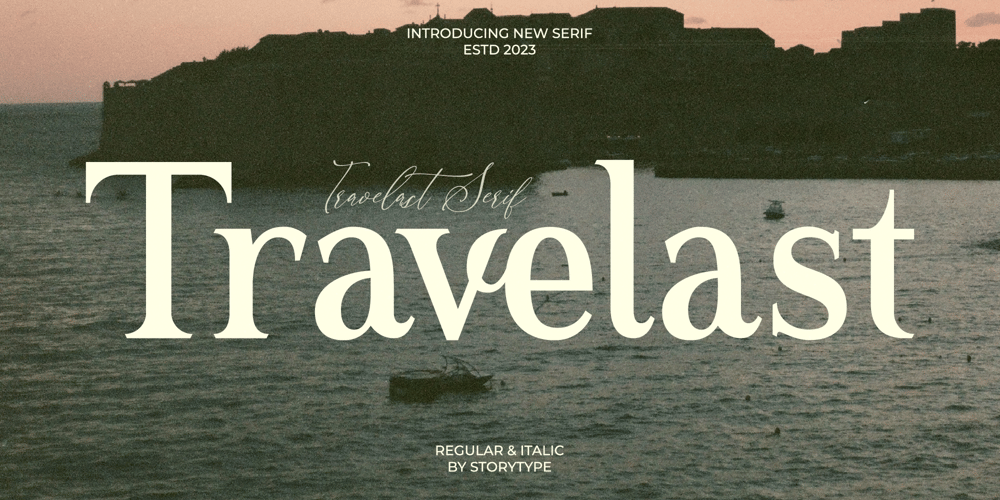
Travelast Font Family was designed by Heru Utama Putra and published by Letterena Studios. Travelast contains 2 styles and family package options. Travelast Typeface is a classic serif typeface. This lovely font is perfect for an elegant & luxury logo, book or movie title design, fashion brand, magazine, clothes, lettering, quotes, and so much more.